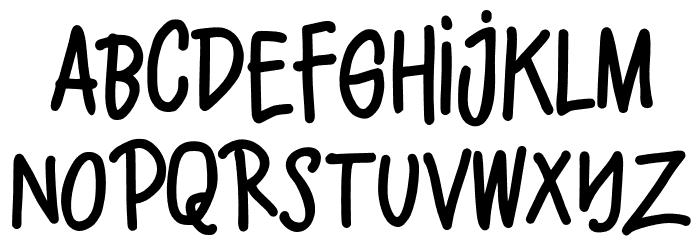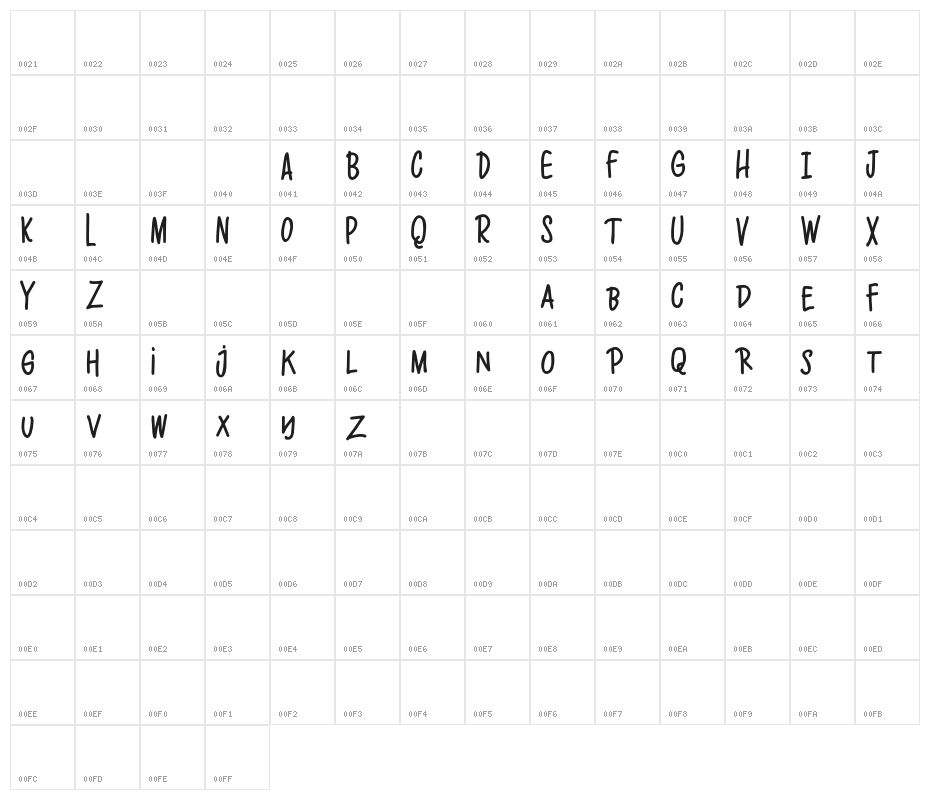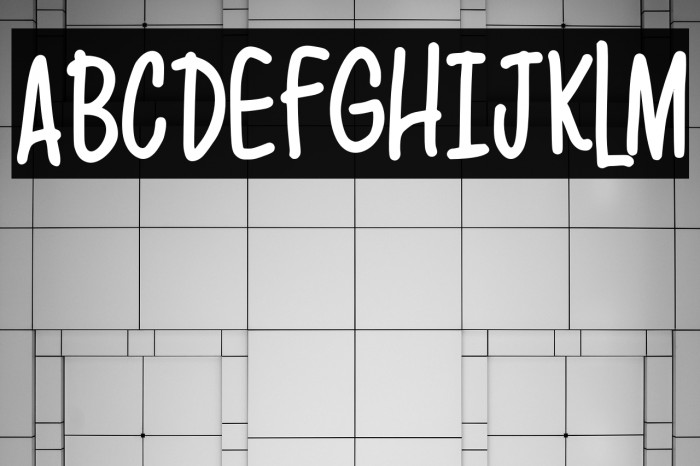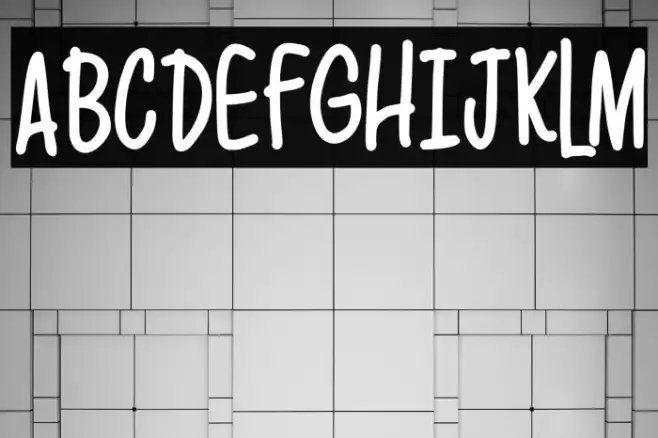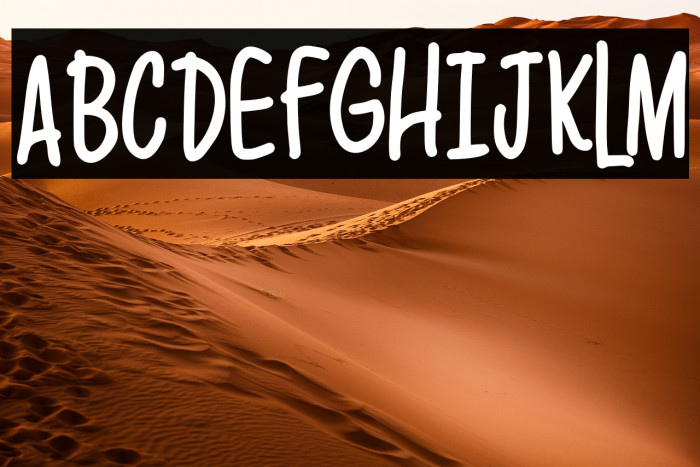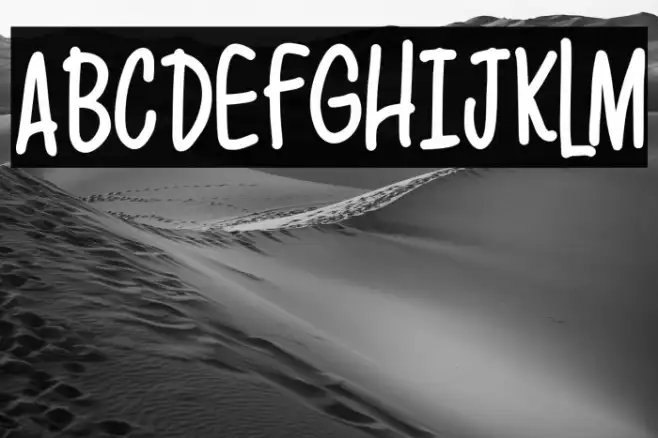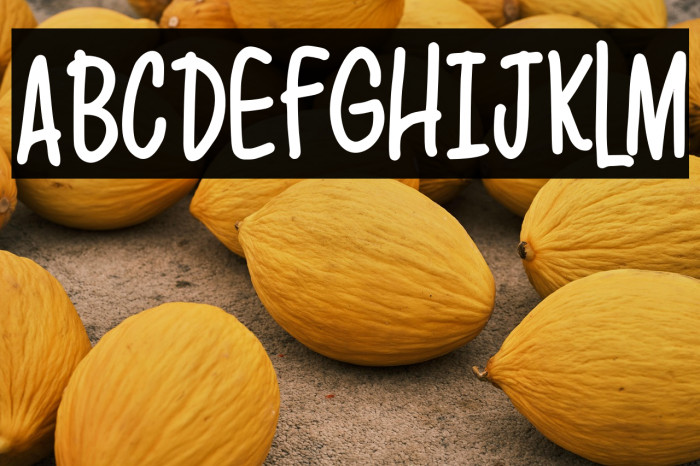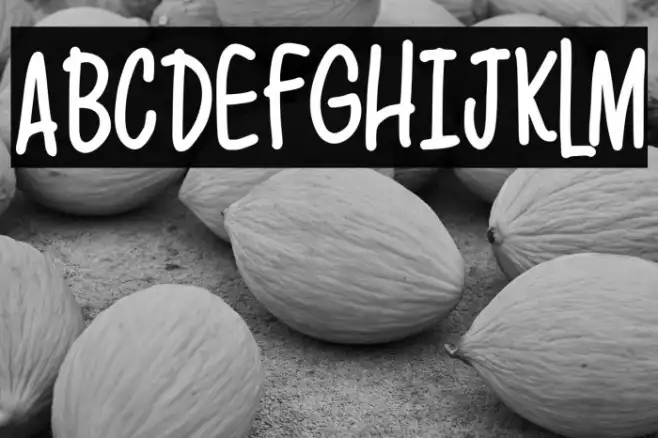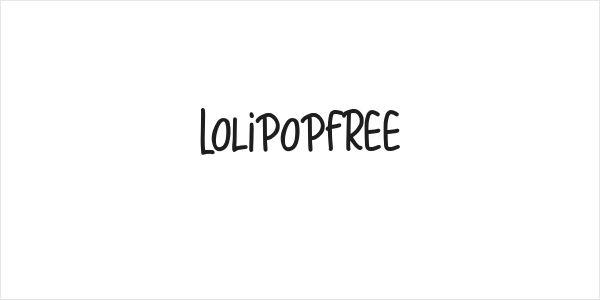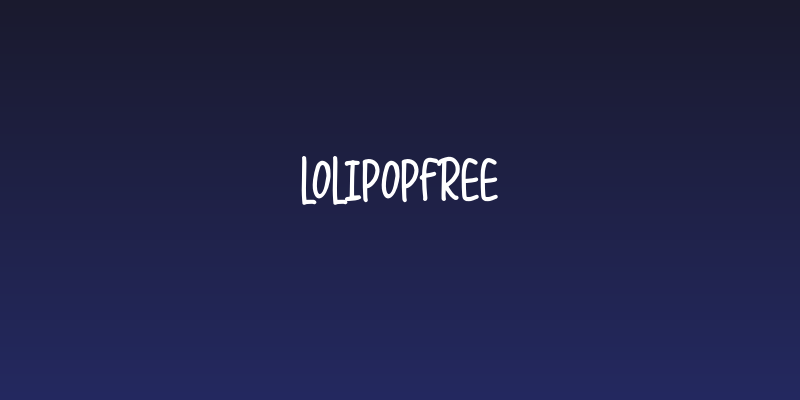
LolipopFREE Font
This playful and energetic font features bold, rounded characters with a hand-drawn aesthetic. The letters are slightly irregular, giving them a whimsical and casual feel. The uppercase and lowercase letters maintain a consistent style, with smooth curves and a friendly appearance. The font's design is approachable and fun, making it ideal for projects that require a touch of personality and creativity. The overall look is lively and engaging, perfect for capturing attention in a lighthearted manner.
A playful, hand-drawn font with bold, rounded characters.
- Font: LolipopFREE
- Proposed Projects: Ideal for children's books, playful branding, greeting cards, and social media graphics.
- Category: Handwritten
- Overall Style: Playful